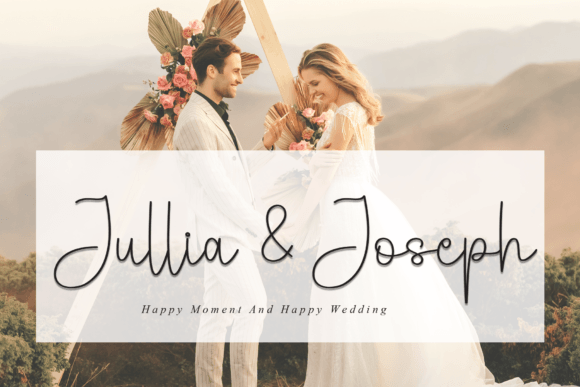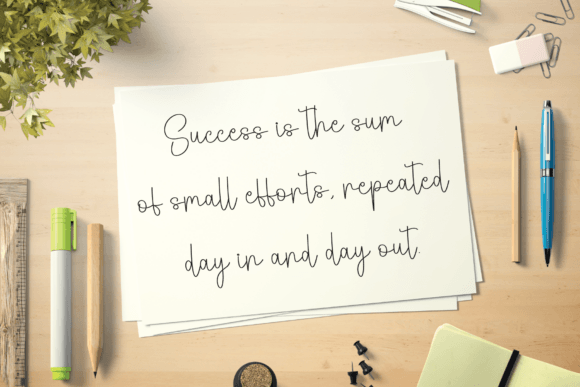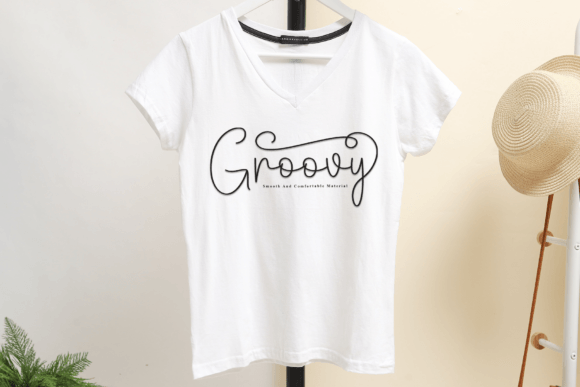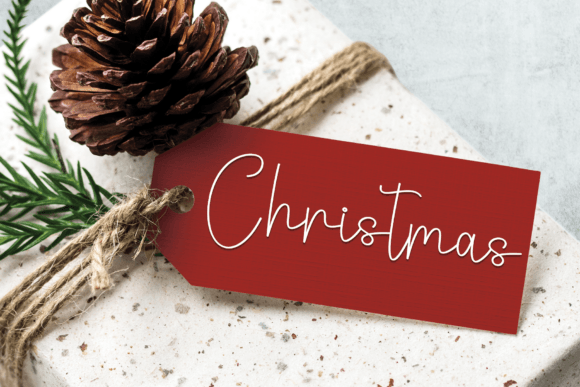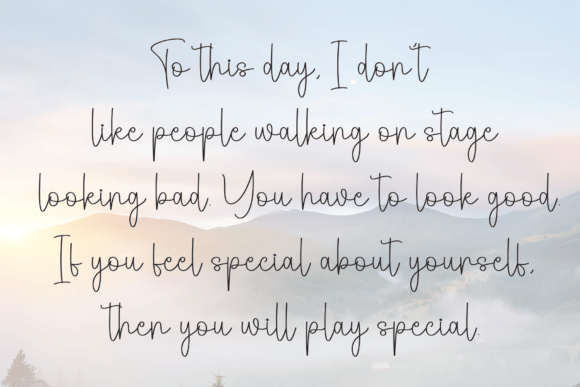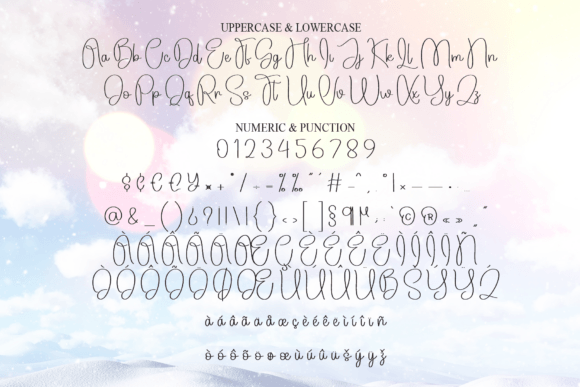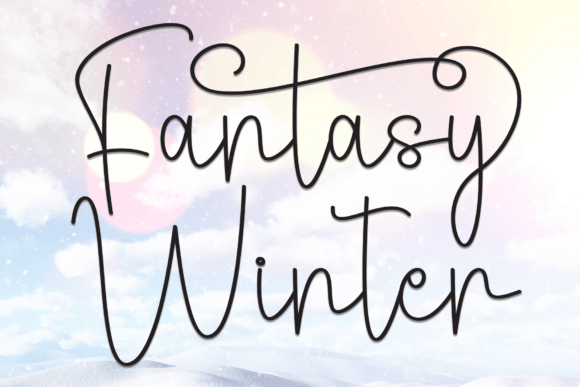
Fantasy Winter Font: Add a Touch of Whimsy to Your Designs
Are you looking for a font that can add a dash of magic to your design projects? Look no further than the Fantasy Winter Font, a charming and congenial, hand-rendered display font that’s perfect for crafting elegant wedding invitations, captivating cards, or any project that requires a playful touch.
What is Fantasy Winter Font?
Fantasy Winter Font is a unique and enchanting font that’s designed to bring a touch of whimsy to your designs. With its joyous and lively feel, this font is sure to captivate your audience and leave a lasting impression. Whether you’re a designer, crafter, or DIY enthusiast, this font is the perfect choice for anyone looking to add a bit of personality to their work.
Key Features of Fantasy Winter Font
So, what makes Fantasy Winter Font so special? Here are just a few of its key features:
• Hand-rendered design: Each letter has been carefully crafted by hand, giving the font a unique and personal touch.
• Playful and elegant: The font strikes the perfect balance between playfulness and elegance, making it suitable for a wide range of design projects.
• Perfect for wedding invitations and cards: The font’s elegant and whimsical feel makes it ideal for wedding invitations, birthday cards, and other special occasions.
• Easy to read: Despite its playful feel, the font is easy to read, making it perfect for both digital and print designs.
How to Use Fantasy Winter Font
So, how can you use Fantasy Winter Font in your designs? Here are a few ideas to get you started:
• Wedding invitations: Use the font to create beautiful and elegant wedding invitations that will set the tone for the big day.
• Birthday cards: Add a touch of whimsy to your birthday cards with this delightful font.
• DIY projects: Use the font to add a personal touch to your DIY projects, such as scrapbooking, journaling, or crafting.
• Digital designs: The font is perfect for digital designs, such as social media graphics, blog posts, or email newsletters.
Benefits of Using Fantasy Winter Font
So, why should you choose Fantasy Winter Font for your design projects? Here are just a few benefits:
• Unique and eye-catching: The font’s unique and whimsical design is sure to grab attention and leave a lasting impression.
• Versatile: The font is suitable for a wide range of design projects, from wedding invitations to digital designs.
• High-quality design: The font has been carefully crafted to ensure that it’s of the highest quality, with clear and crisp lines.
Tips for Getting the Most Out of Fantasy Winter Font
Here are a few tips for getting the most out of Fantasy Winter Font:
• Experiment with different colors: The font looks great in a variety of colors, so don’t be afraid to experiment and find the perfect shade for your design.
• Pair with other fonts: The font pairs well with other fonts, so try combining it with a sans-serif font for a contrasting look.
• Use it sparingly: While the font is beautiful, it’s best to use it sparingly to avoid overwhelming your design.
In conclusion, Fantasy Winter Font is a charming and congenial, hand-rendered display font that’s perfect for adding a touch of whimsy to your design projects. With its unique and eye-catching design, versatility, and ease of use, this font is sure to become a favorite among designers and crafters. So why not give it a try and see the magic it can bring to your designs?